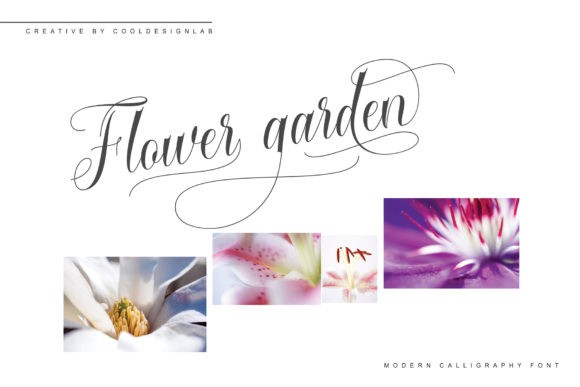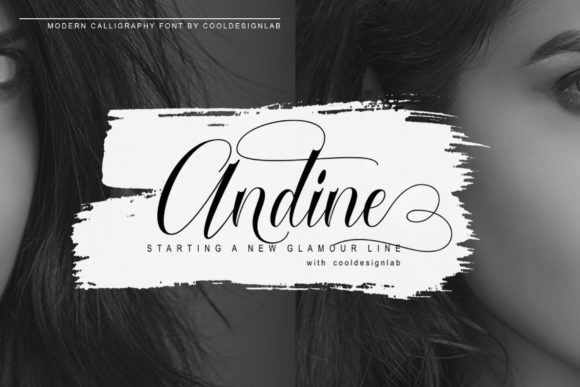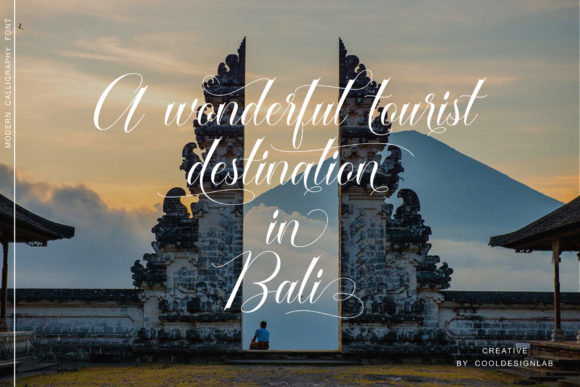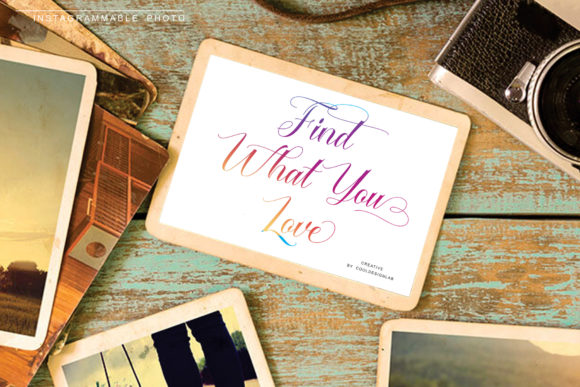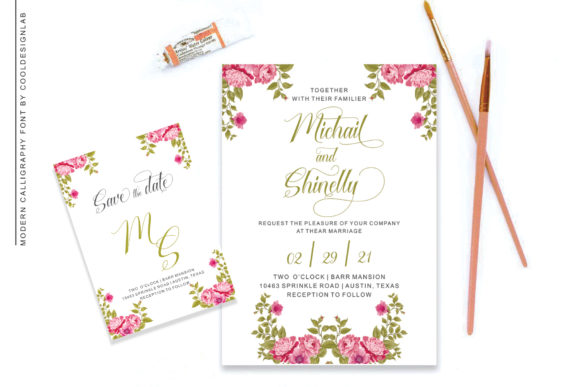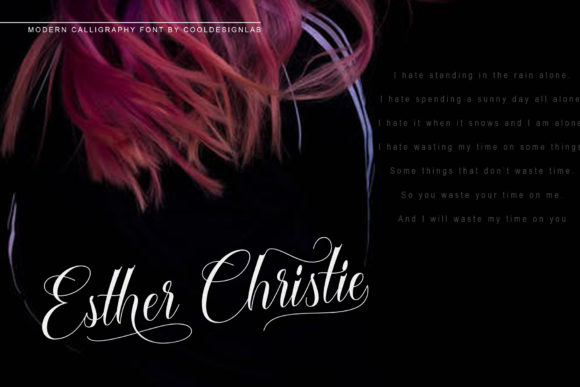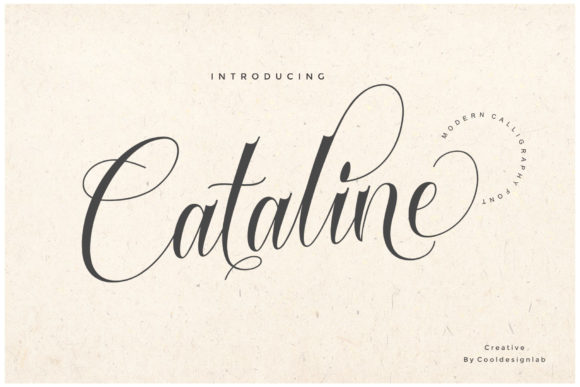
Cataline Script Font: Elevate Your Designs with Elegance and Sophistication
Are you looking for a font that can add a touch of elegance and sophistication to your designs? Look no further than the Cataline Script Font. This fresh calligraphy font is perfect for designers and crafters who want to create beautiful and eye-catching materials. With its modern style, decorative characters, and dancing baseline, Cataline is sure to take your designs to the next level.
What is Cataline Script Font?
The Cataline Script Font is a modern calligraphy font that features a unique and stylish design. Its fresh and elegant look makes it perfect for a wide range of design projects, from invitations and greeting cards to branding materials, business cards, quotes, posters, and more. The font’s decorative characters and dancing baseline give it a playful and dynamic feel that’s sure to capture the attention of your audience.
Key Features of Cataline Script Font
- Modern Style: Cataline has a modern and sleek design that’s perfect for contemporary designs.
- Decorative Characters: The font features decorative characters that add a touch of elegance and sophistication to your designs.
- Dancing Baseline: The dancing baseline gives the font a playful and dynamic feel that’s sure to capture the attention of your audience.
- Versatile: Cataline can be used for a wide range of design projects, from invitations and greeting cards to branding materials, business cards, quotes, posters, and more.
Uses of Cataline Script Font
The Cataline Script Font is perfect for a wide range of design projects, including:
- Invitations: Use Cataline to create beautiful and elegant invitations for weddings, parties, and other special events.
- Greeting Cards: Add a touch of elegance and sophistication to your greeting cards with Cataline.
- Branding Materials: Use Cataline to create stunning branding materials, such as logos, brochures, and flyers.
- Business Cards: Elevate your business cards with Cataline’s modern and stylish design.
- Quotes: Use Cataline to create inspiring and eye-catching quotes for social media, posters, and more.
- Posters: Create stunning posters with Cataline’s decorative characters and dancing baseline.
Why Choose Cataline Script Font?
There are many reasons why you should choose Cataline Script Font for your design projects. Here are a few:
- Unique Design: Cataline has a unique and stylish design that’s sure to set your designs apart from the rest.
- Elegant and Sophisticated: The font’s elegant and sophisticated look makes it perfect for designs that require a touch of luxury and refinement.
- Versatile: Cataline can be used for a wide range of design projects, making it a great addition to your font collection.
Tips for Using Cataline Script Font
Here are a few tips for using Cataline Script Font in your design projects:
- Use it Sparingly: Use Cataline sparingly to add a touch of elegance and sophistication to your designs.
- Pair it with Other Fonts: Pair Cataline with other fonts to create a unique and stylish design.
- Experiment with Different Sizes: Experiment with different sizes to find the perfect size for your design.
- Use it for Headlines: Use Cataline for headlines and titles to add a touch of elegance and sophistication to your designs.
In conclusion, the Cataline Script Font is a beautiful and elegant font that’s perfect for designers and crafters who want to create stunning designs. With its modern style, decorative characters, and dancing baseline, Cataline is sure to elevate your designs to the next level. Whether you’re creating invitations, greeting cards, branding materials, business cards, quotes, posters, or more, Cataline is the perfect choice.